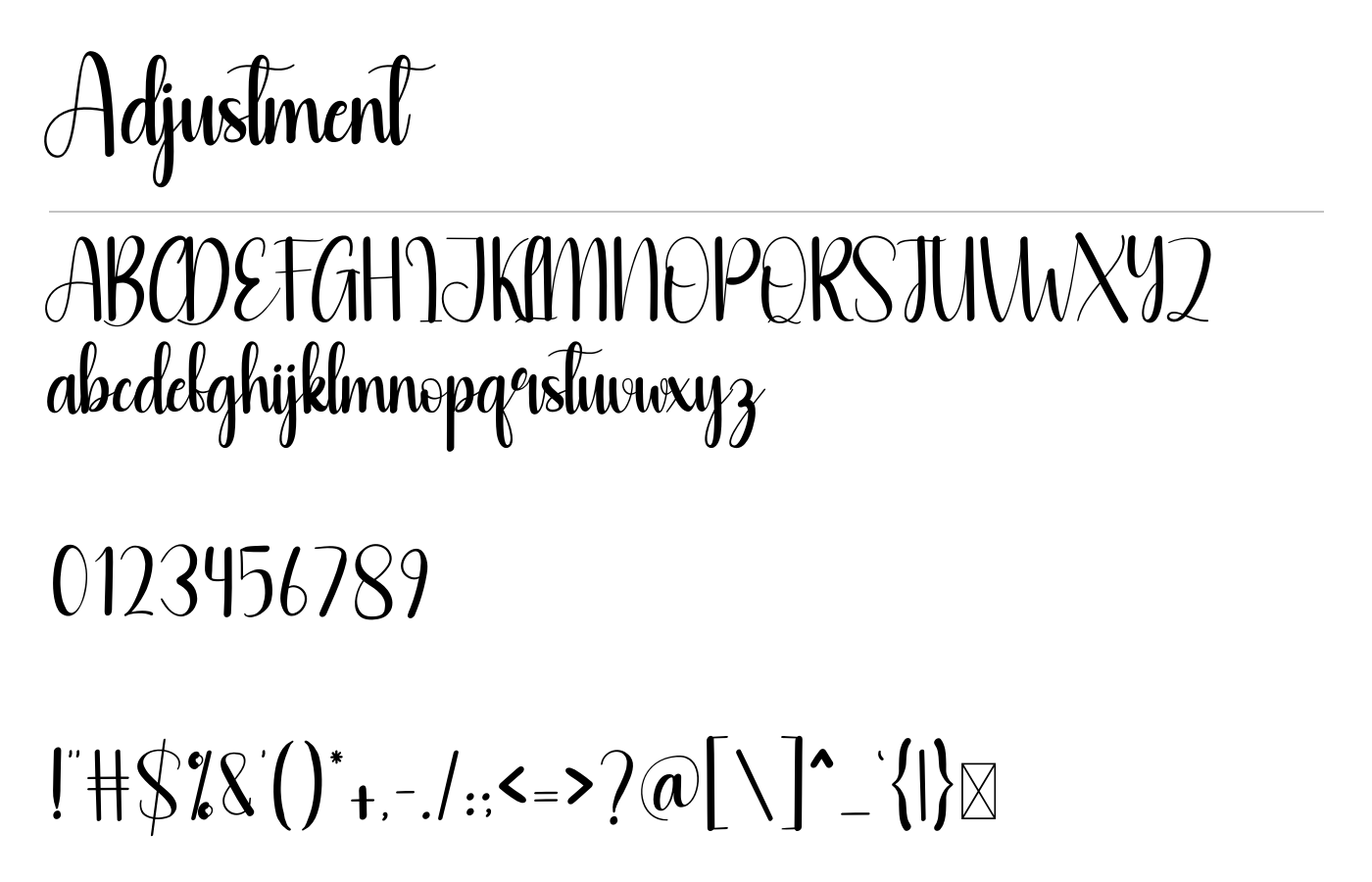
Adjustment Font is a playful and elegant script-style typeface featuring thin, fluid strokes with a high contrast between thick and thin lines. Its narrow, tall letterforms and charming, looping details give it a whimsical feel, making it ideal for creative branding, invitations, and headlines where a touch of sophistication and personality is desired. This font works beautifully for projects seeking a blend of modern flair and delicate artistry.
Adjustment Font
About Adjustment Font